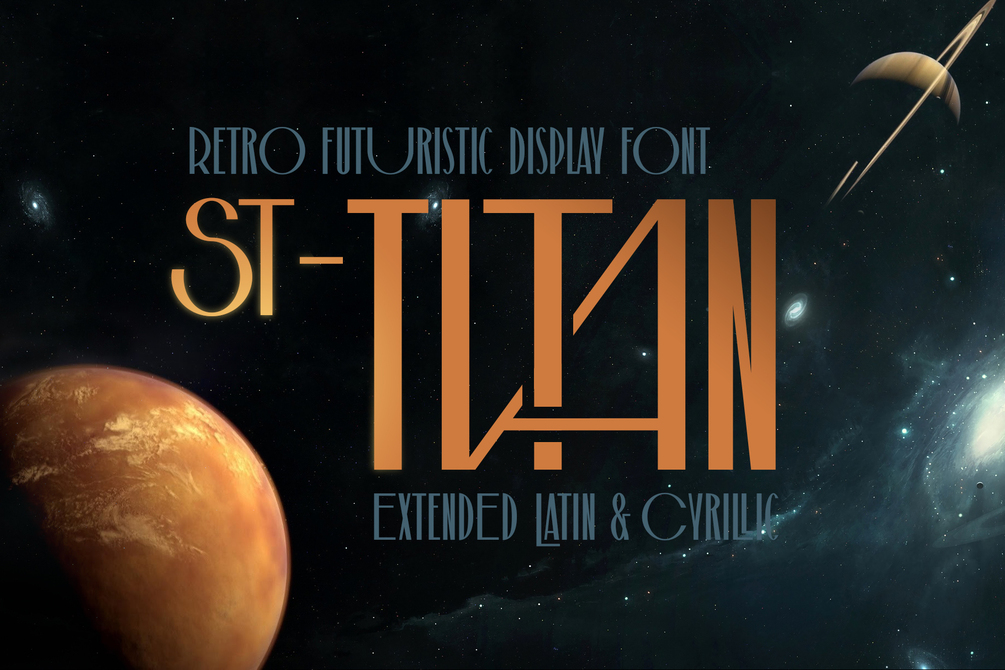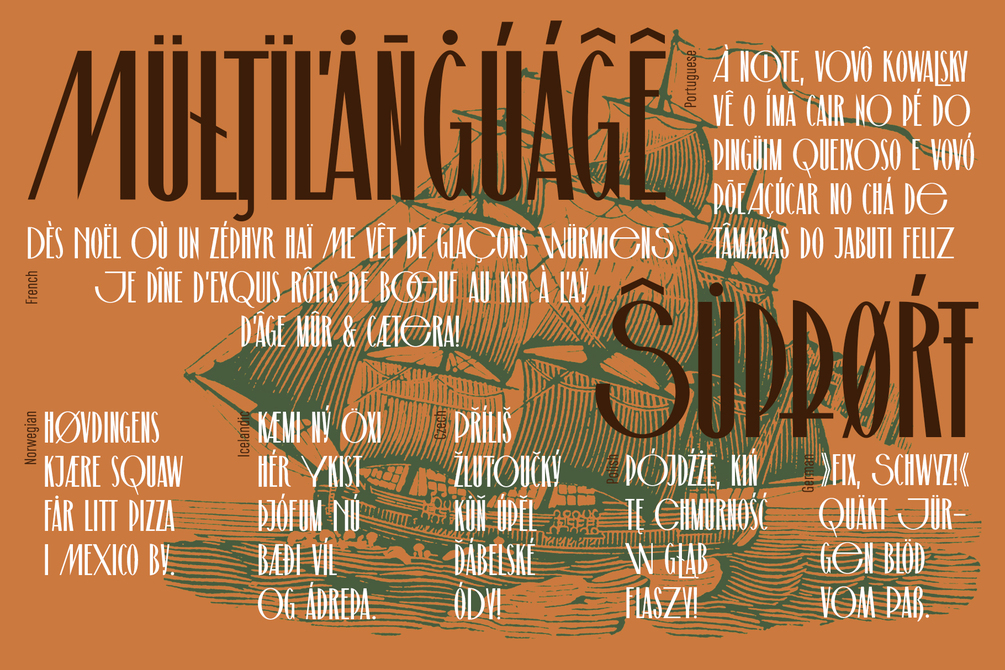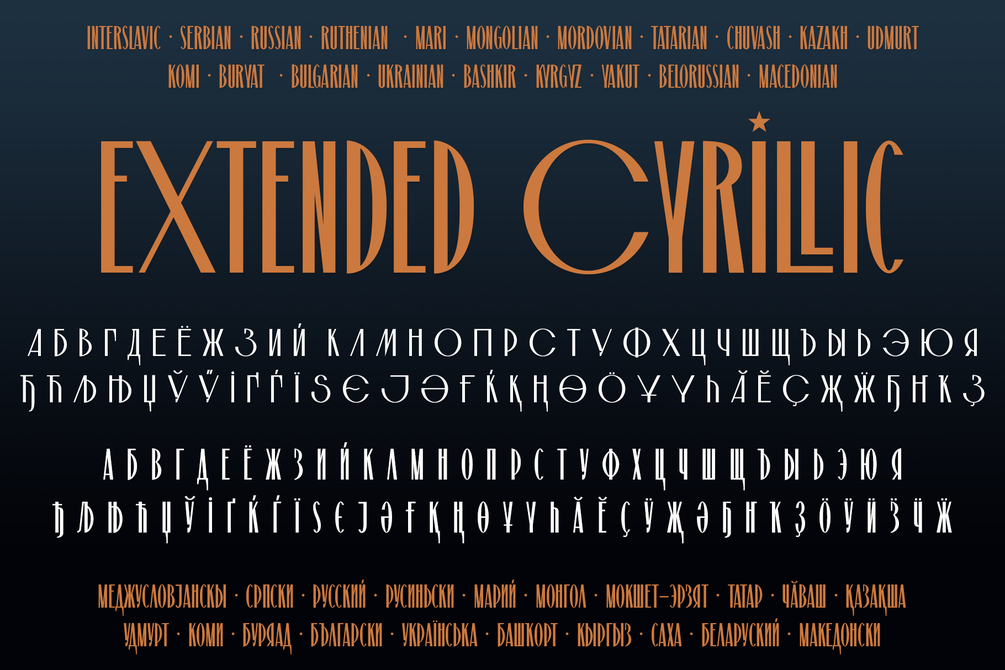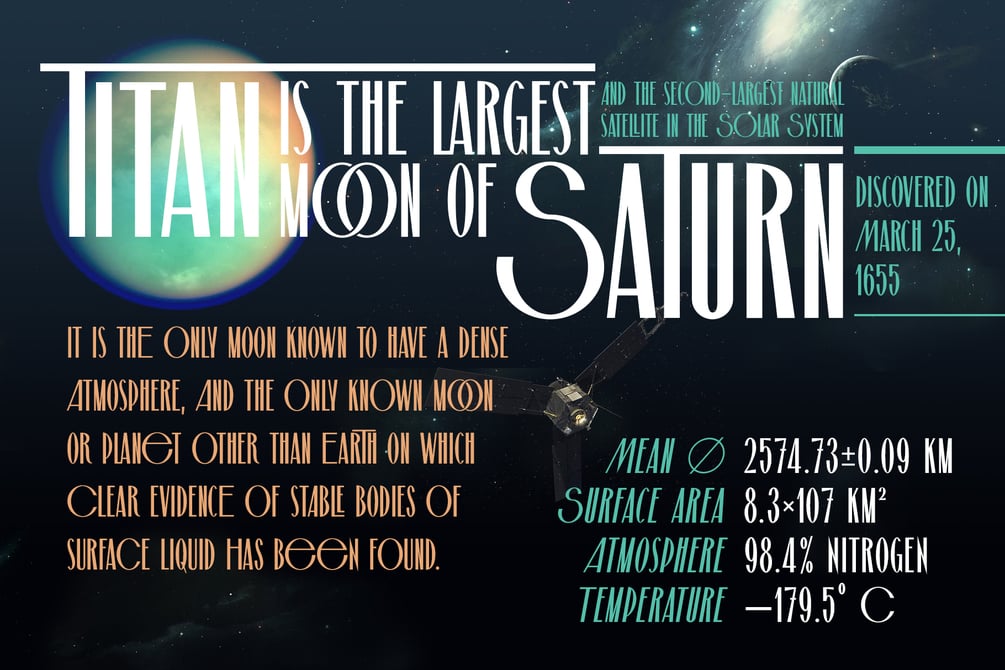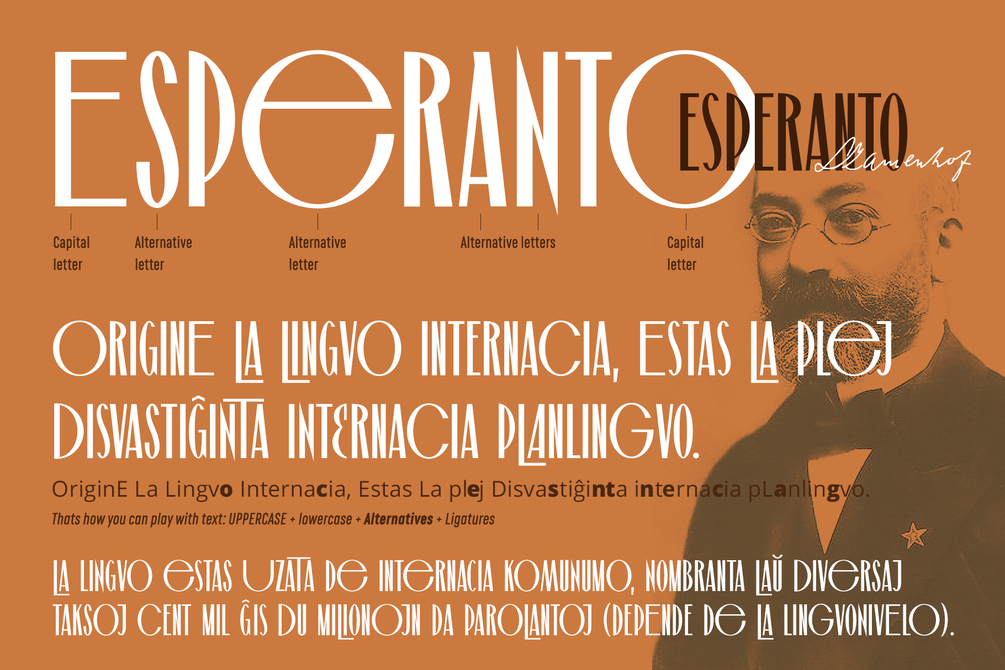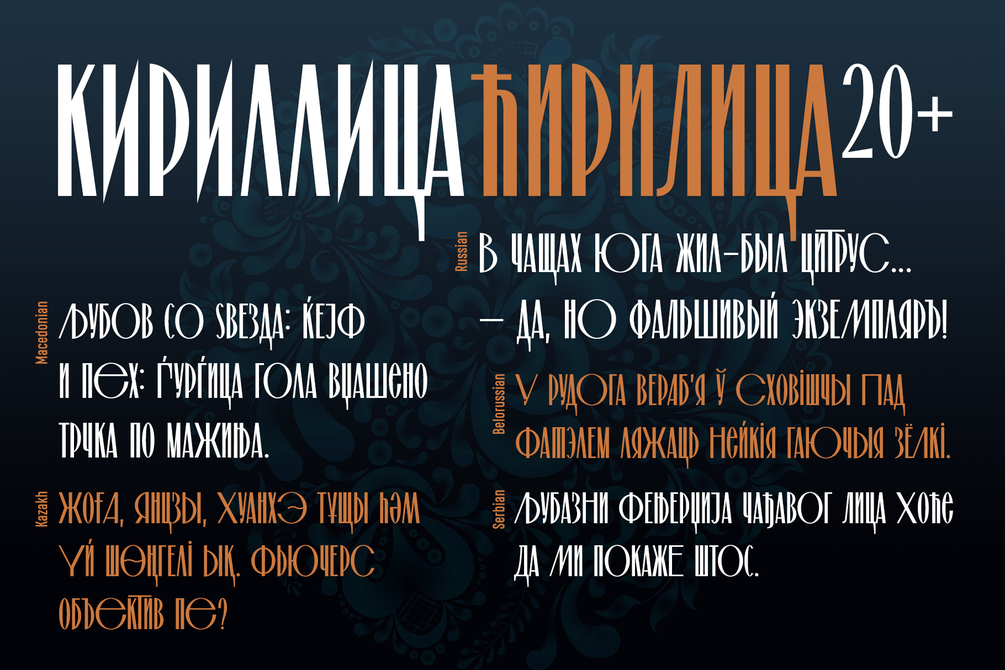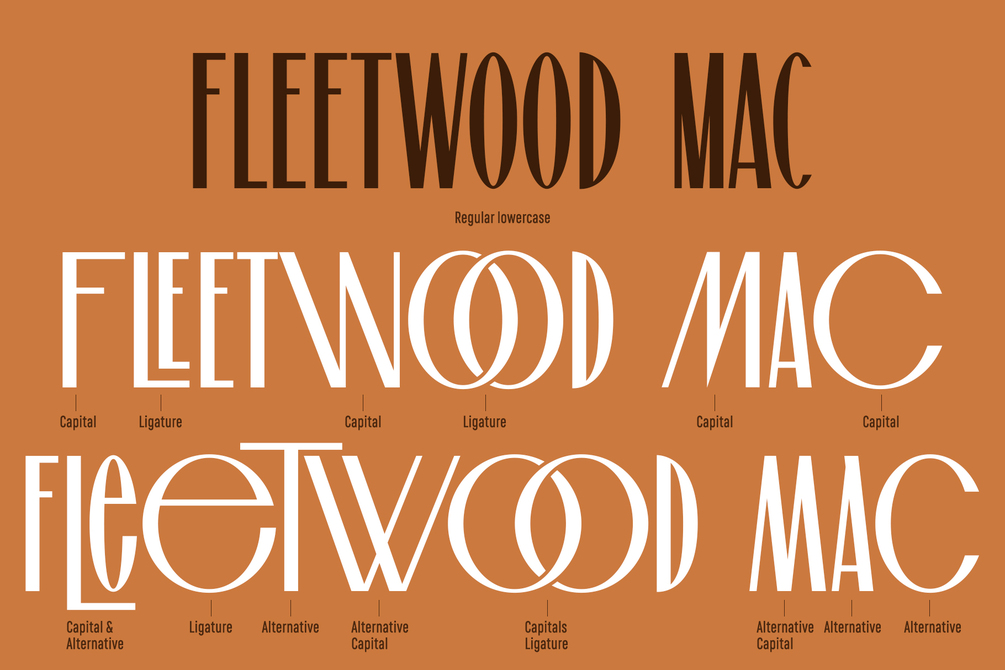
ST-Titan retro futuristic font
ST-Titan is the satellite font for ST-Saturn font. It is a retro futuristic modern editorial font with vintage vibes, inspirated by Soviet sci-fi book's headers and posters. It's good for social media, headlines, large-format print, branding, posters, fashion designs and websites. This is all caps font with a big variaty of alternatives and ligatures for making your design unique and interestig. Don't shy to play with these letters.
It supports more than 40 europoan and asian languages with Extended Latic and Cyrillic letters. Try to check here the language you need and with the great chance you will find it.
Numerals, international symbols, punctuation included.